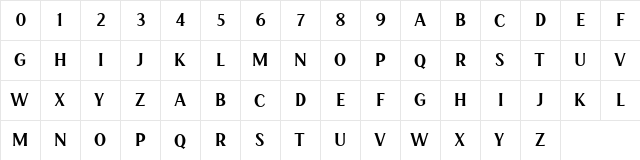
HENAVE Regular DEMO Regular
| Foundry | Konstantine Studio |
| Designer | Konstantine Studio |
Design Context for HENAVE Regular DEMO Typeface
HENAVE Regular DEMO is a composed and adaptable typeface that performs quietly and consistently across a wide range of design contexts.